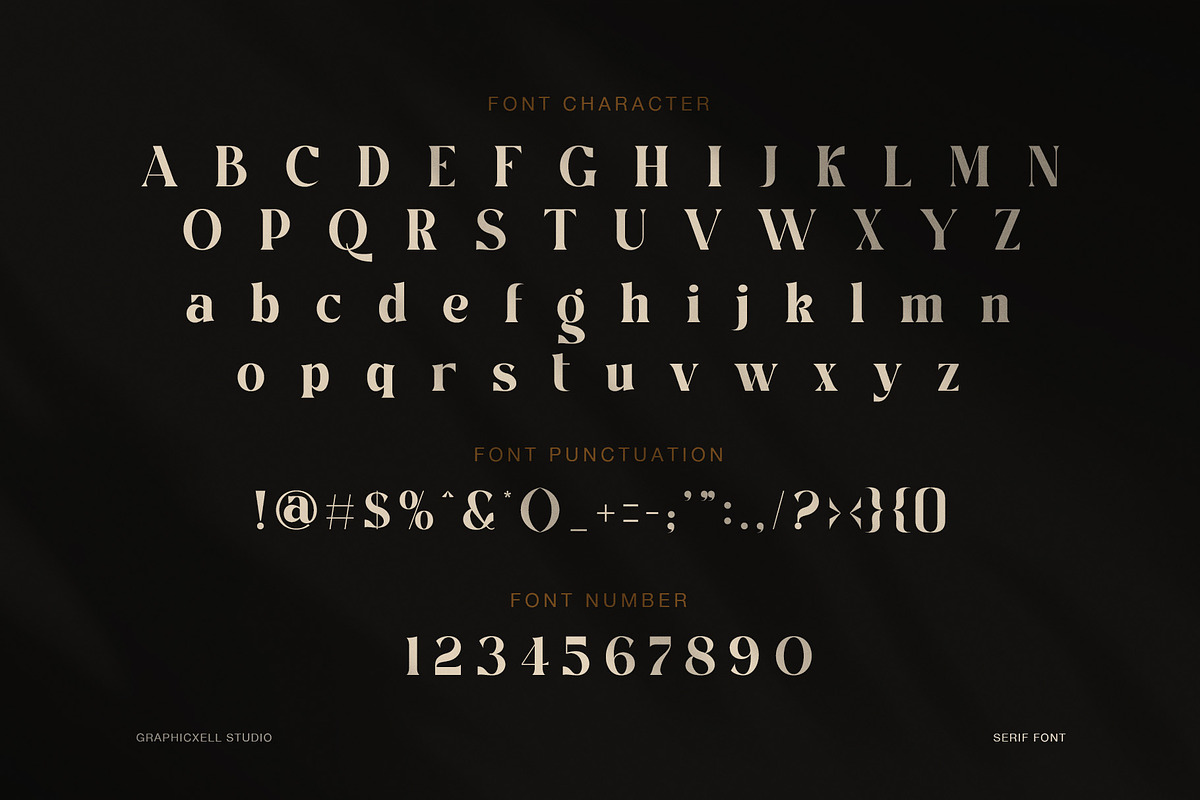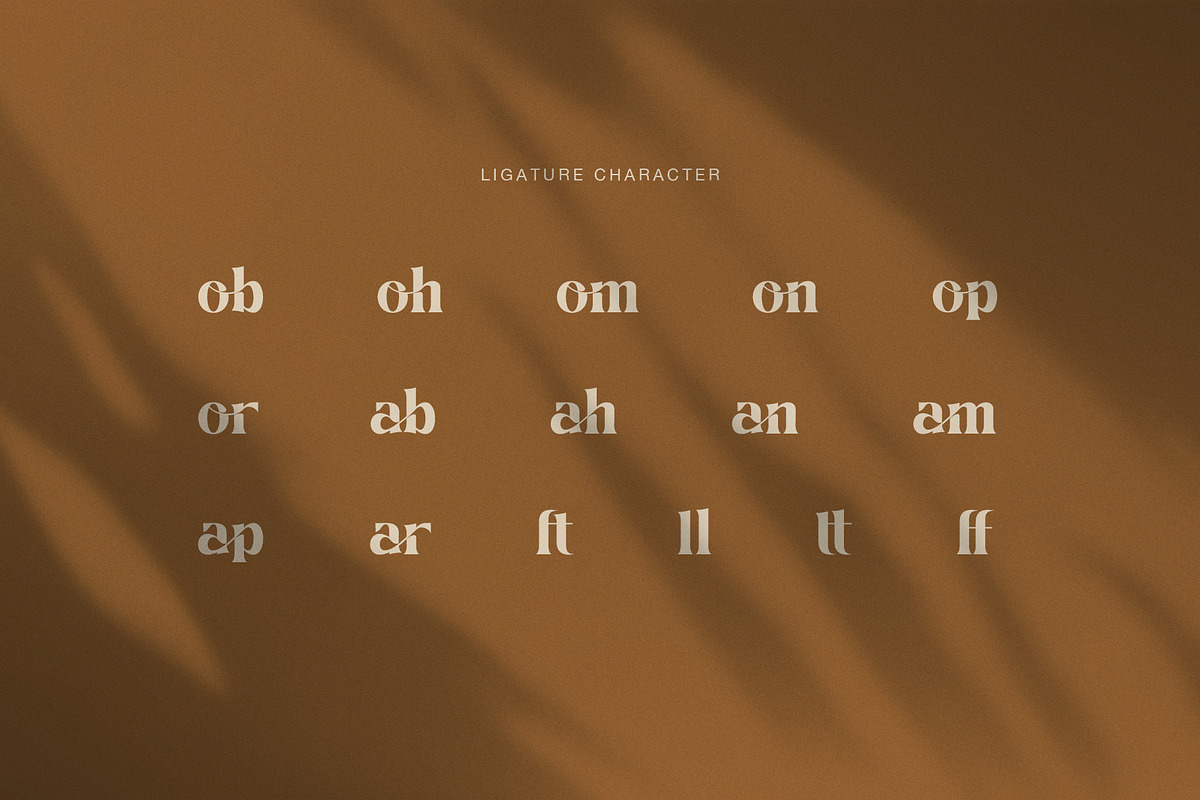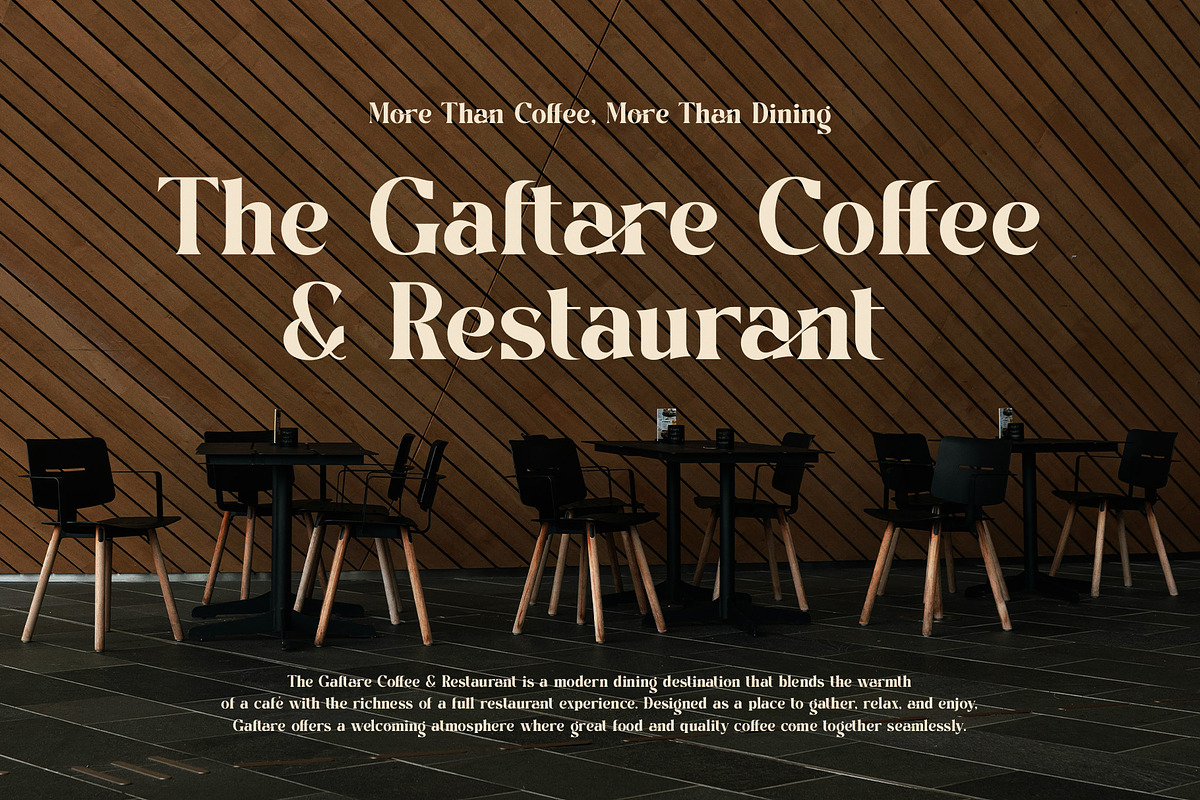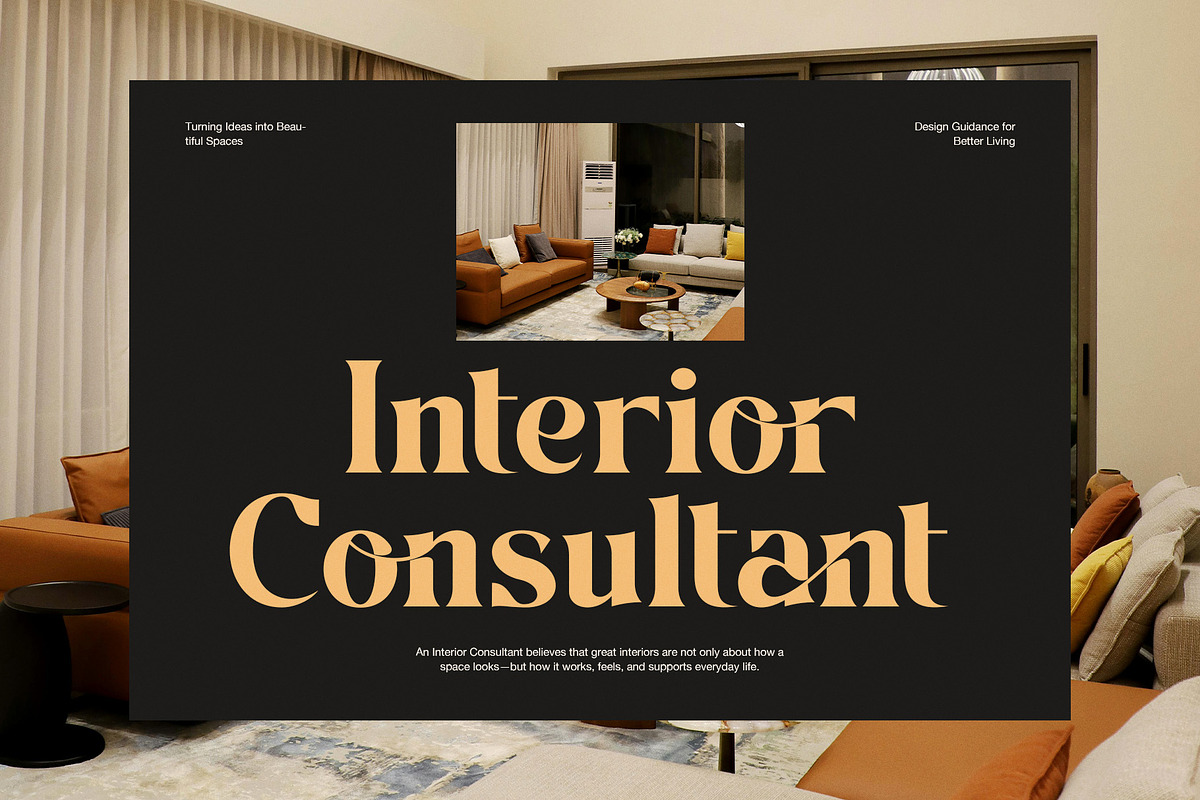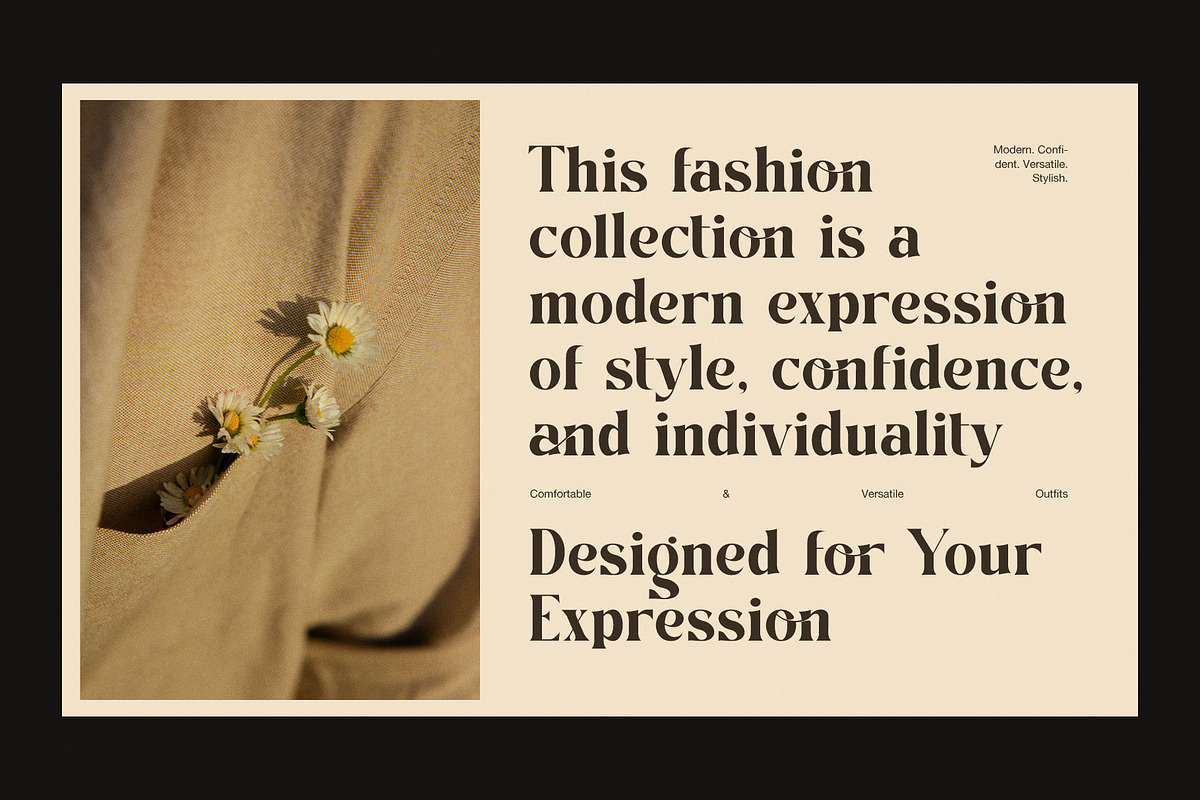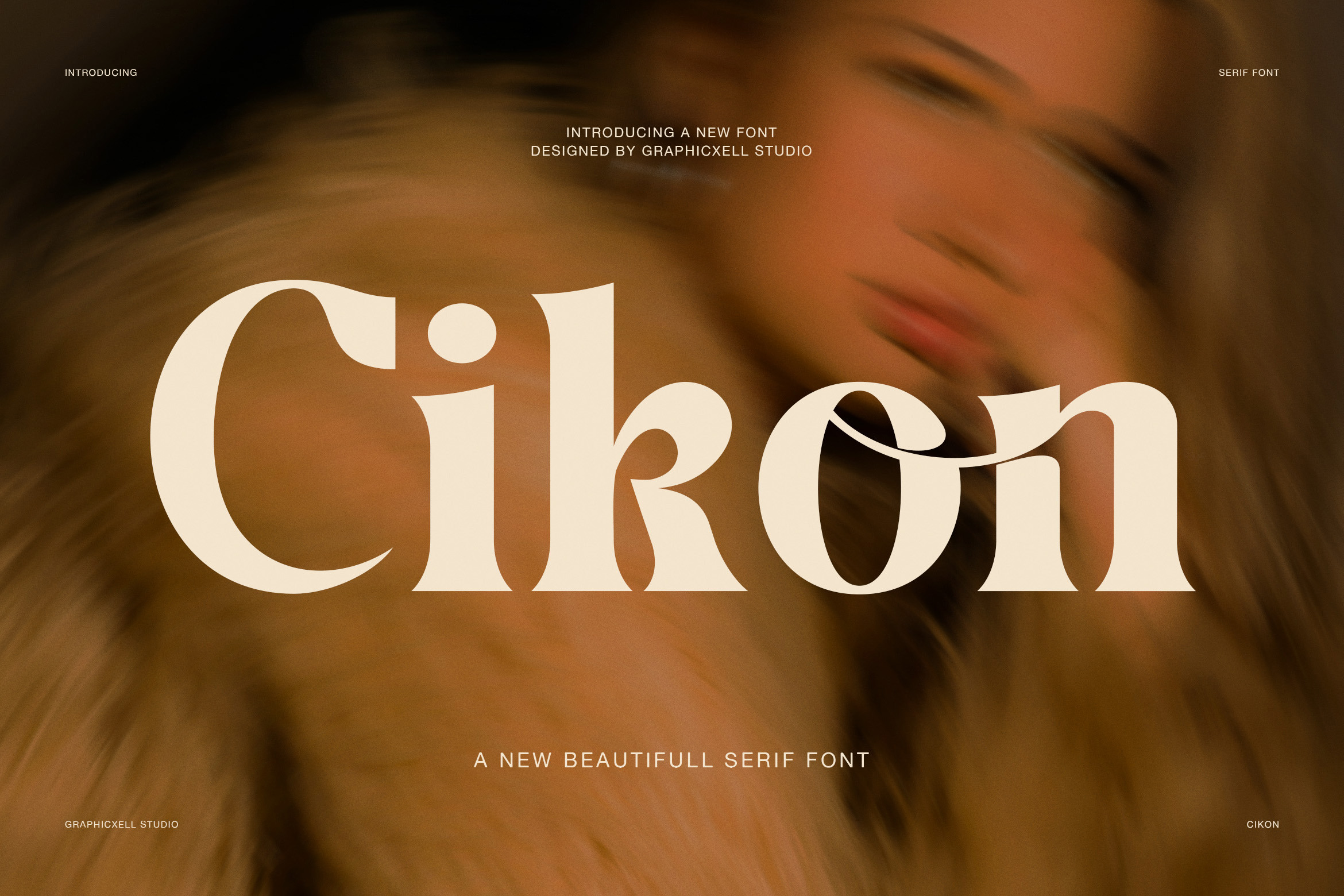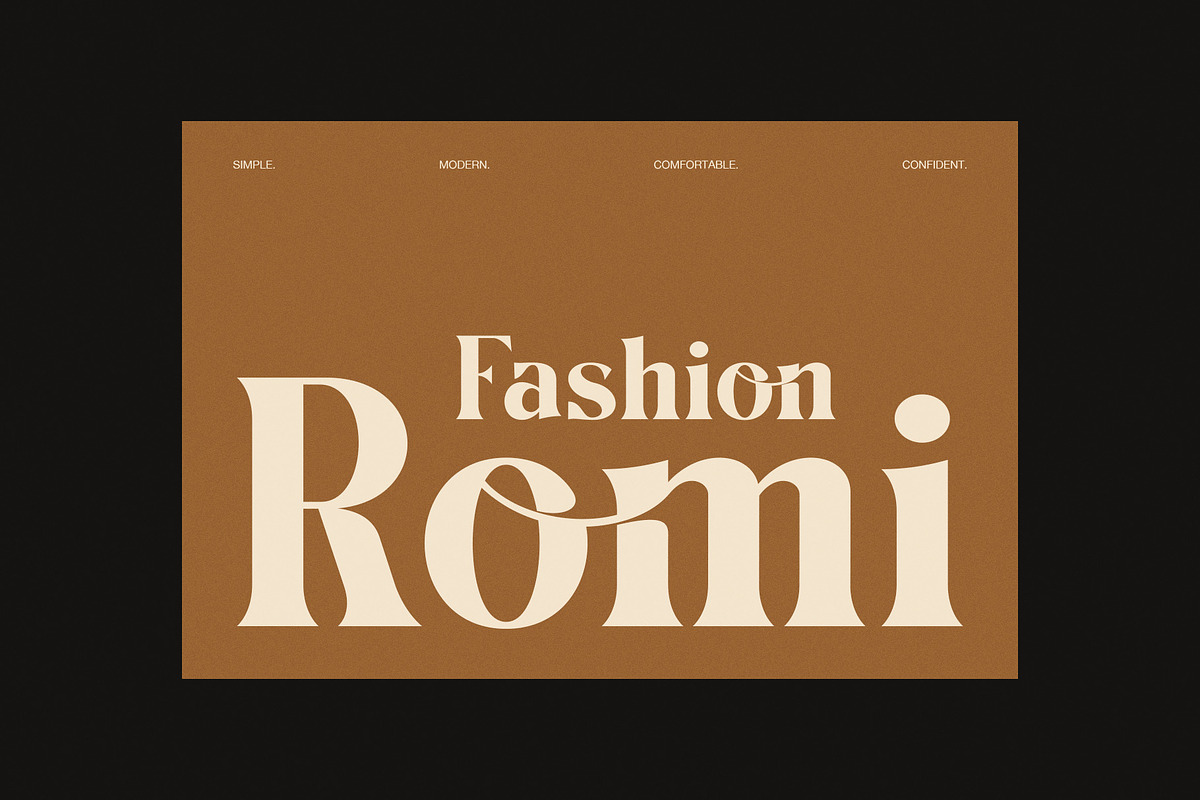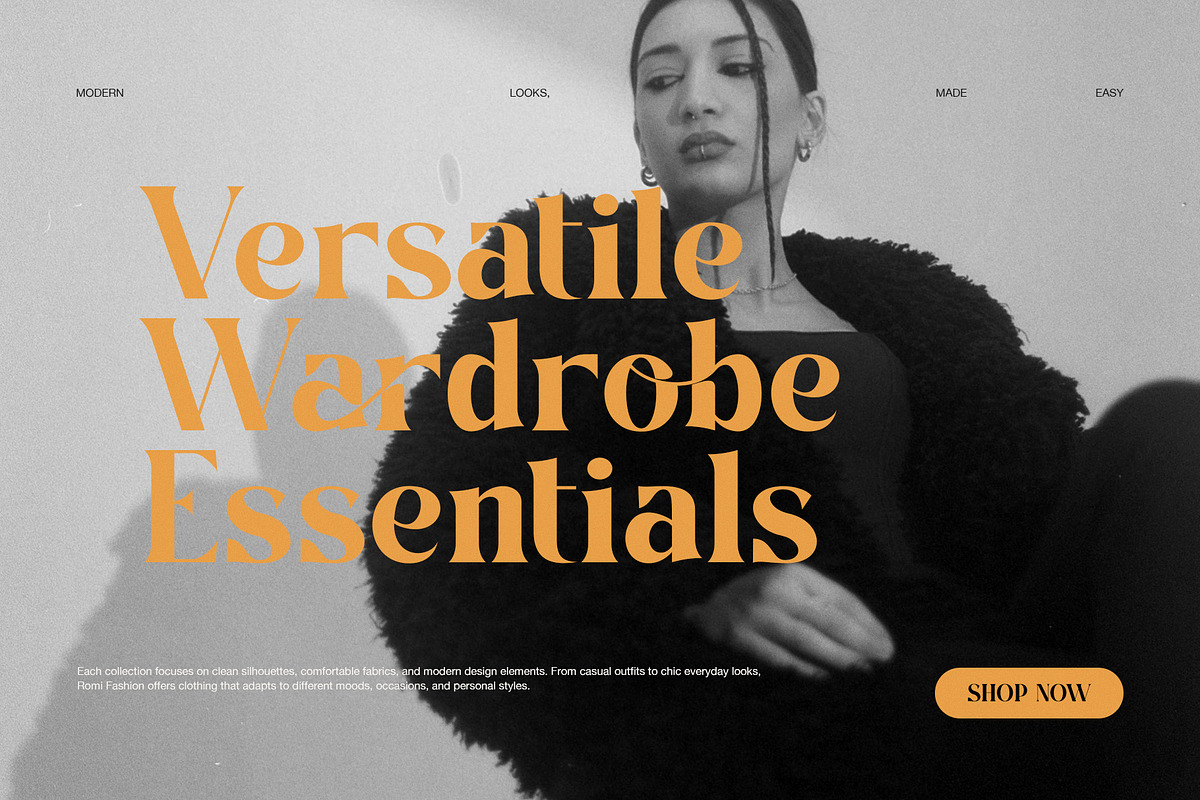
Cikon Luxury Fashion Serif Font
Cikon Luxury Fashion Serif Font is a modern high-contrast serif typeface designed for elegant branding and editorial use. It combines bold fashion style with smooth curves and sharp details, so it creates a strong visual identity. Moreover, it works perfectly for luxury projects, magazine layouts, and high-end logos.
Furthermore, Cikon is inspired by modern fashion editorials and cinematic typography trends. Because of this, every letter feels stylish and expressive. In addition, the font balances beauty and readability, so it can be used for both headlines and display text. As a result, designers can build strong and memorable visuals with ease.
Moreover, Cikon includes stylish alternates and refined ligatures that enhance creative typography. Therefore, it allows designers to create unique letter combinations without losing consistency. Additionally, its high contrast strokes give a dramatic luxury feel, making it suitable for fashion branding, perfume labels, wedding invitations, and editorial covers.
In addition, Cikon is highly versatile and adapts to many design needs. It performs well in digital and print media, so it is a strong choice for modern designers. Moreover, it supports branding systems that require elegance and impact. Furthermore, it works smoothly across branding projects such as social media posts, packaging design, posters, and web headers. Because of its refined structure, it maintains clarity even at large display sizes, ensuring strong visual impact in every layout.
High-contrast fashion serif style
Elegant editorial design
Stylish ligatures and alternates
Luxury branding typography
Strong display readability
Modern aesthetic structure
Finally, Cikon delivers a premium visual voice for any brand. Therefore, it is ideal for designers who want elegance, confidence, and modern luxury in one font family. It delivers timeless elegance with a modern editorial touch. Overall, it is a perfect choice for high-end fashion identity systems.
Cikon also pairs well with clean sans serif fonts, so designers can build strong contrast in modern layouts. In addition, it is suitable for both minimalist and expressive design styles. Therefore, it adapts easily to different creative directions without losing its luxury feel and strong brand recognition globally usable.